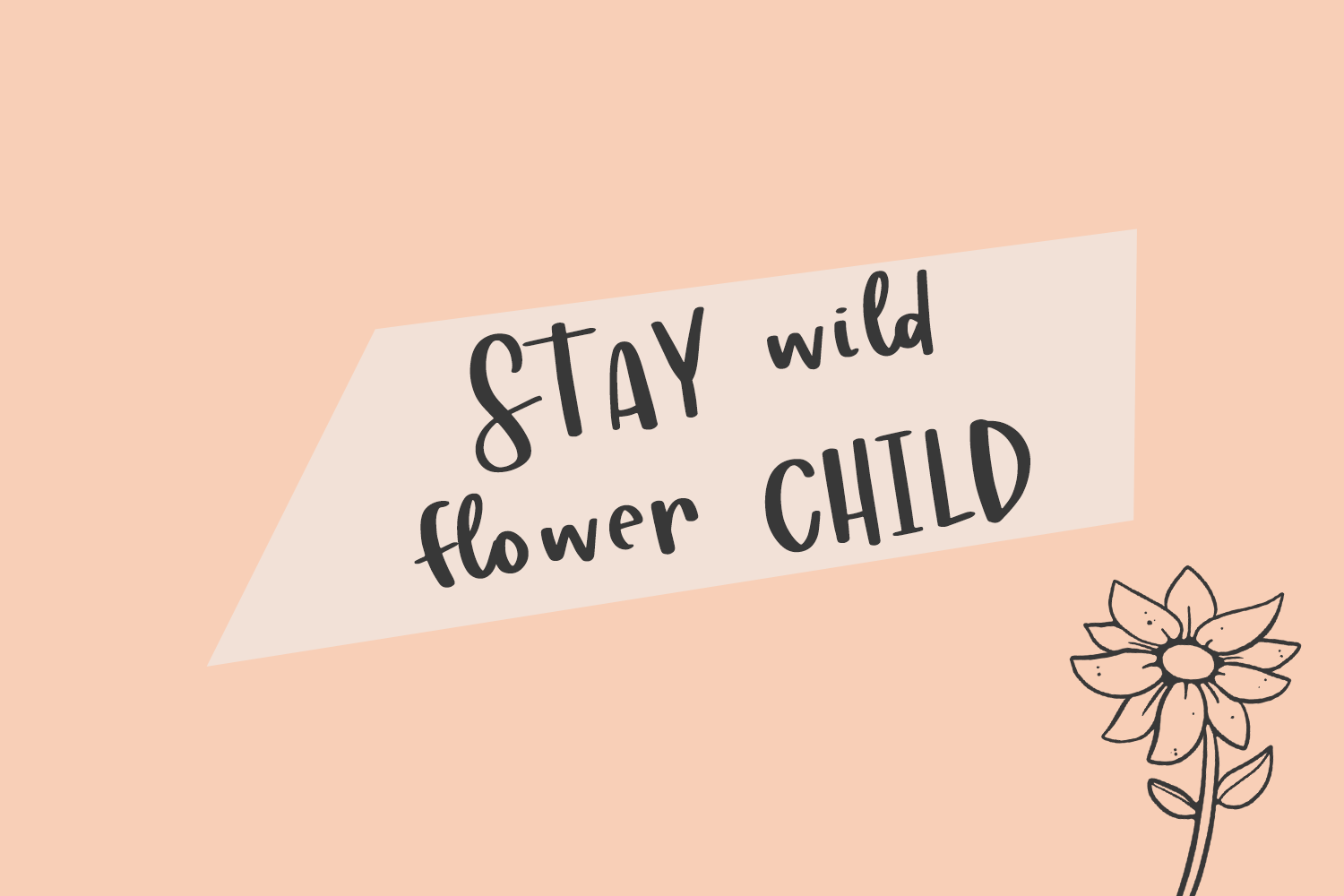
Ridonkulous is best for:
– quote graphics for social media
– logos + branding for kid-centric brands
– design items like shirts, coffee mugs, & more
– Cricut and Silhouette projects
– other crafting projects
– school or classroom projects
Ridonkulous includes:
– 26 alternate caps characters
– 3 ligatures – lf, ll, tt